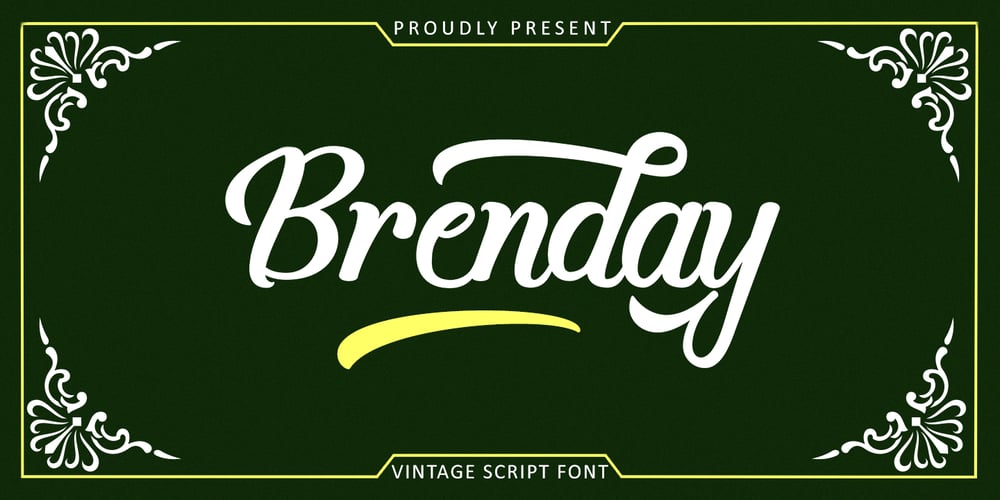
Brenday
Brenday font
Brenday Font Family was designed by Iqbal Amsar Hidayat and published by Bal Studio. Brenday contains 2 styles and family package options. Brenday Script is retro signage font, bold and clean. There are so many variations on each character. Include Opentype stylistic alternates, standard ligatures and multilingual support. You are able to create so many different typographical layouts easily and quickly. Make sure you use OpenType savvy program and simply open Glyph Palette to access all of the glyphs.This font is suitable for t-shirts, signage, logos, branding, packaging etc.Thanks so much for looking and please let me know if you have any questions.